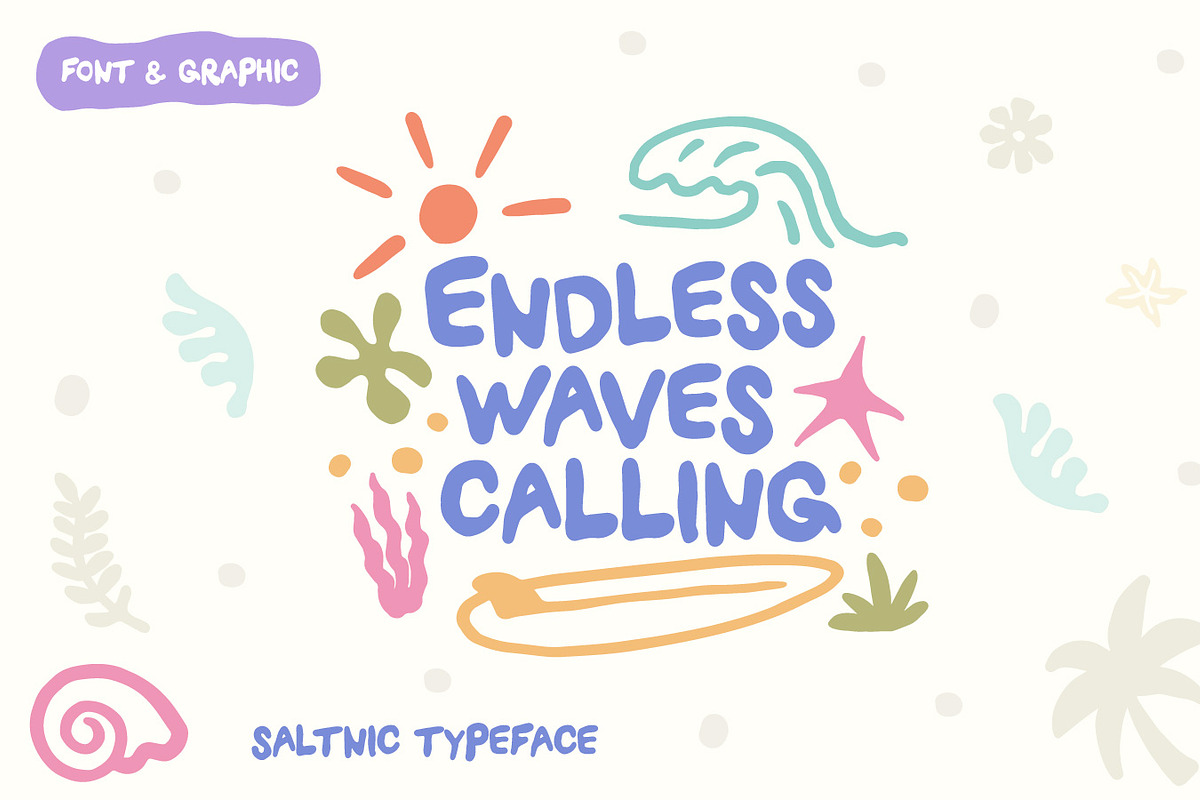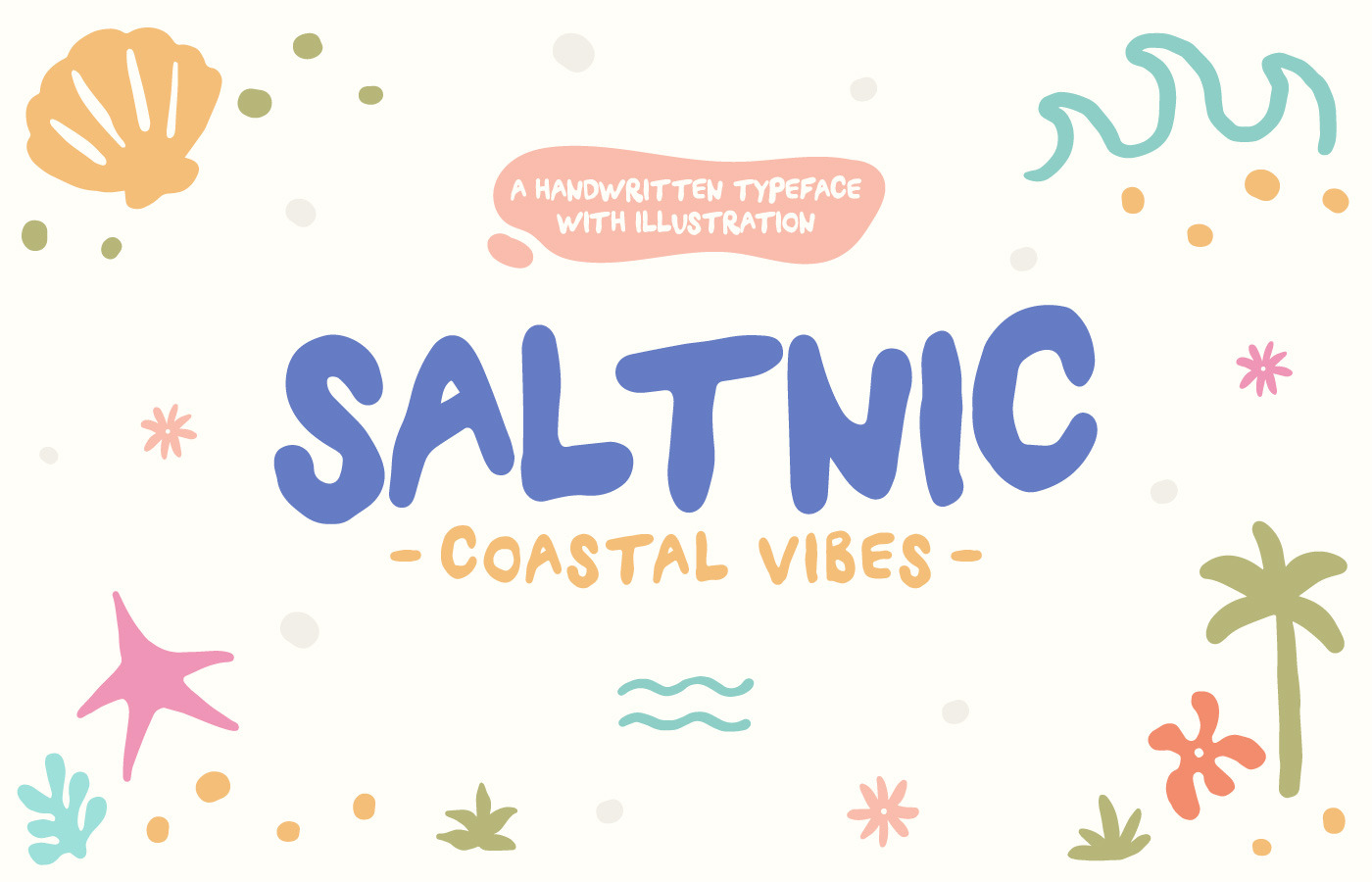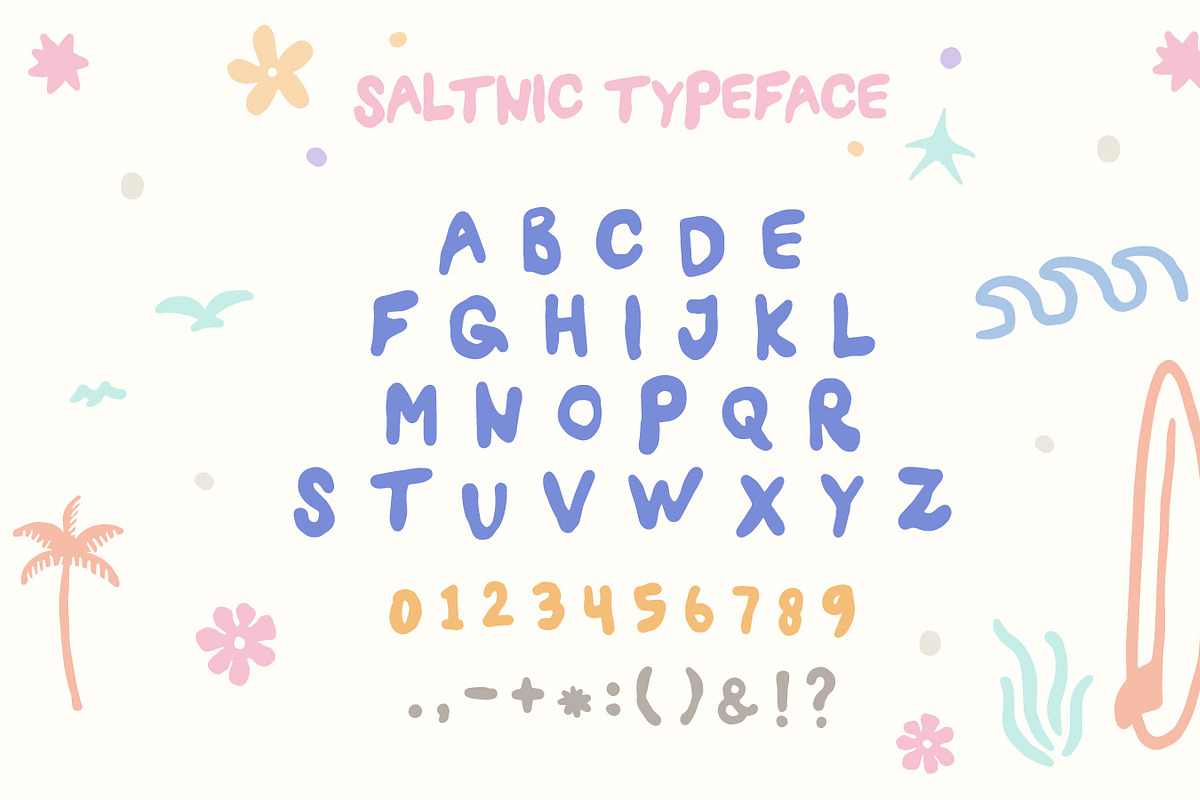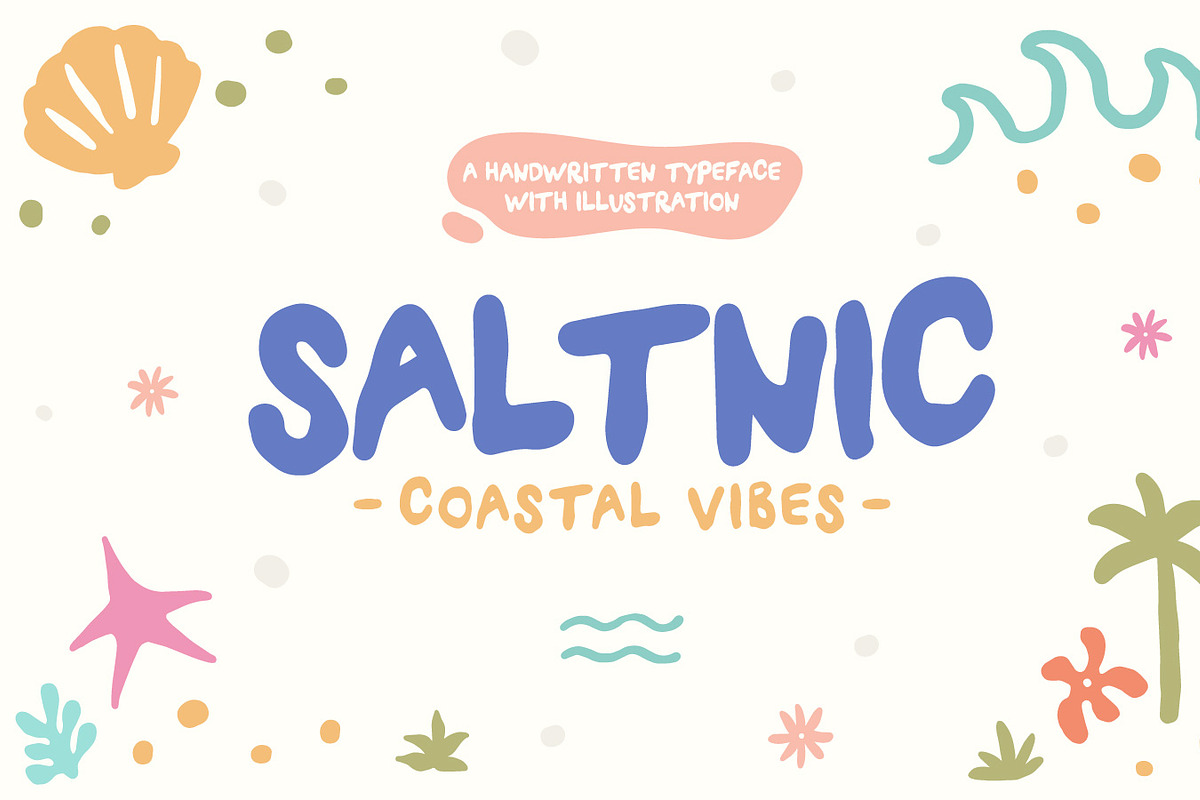
Saltnic - Handwritten Typeface Coast
Saltnic - Handwritten Typeface with Coastal Vibes
Bring the relaxing beach vibes into your designs with Saltnic, a fun and lively handwritten typeface. Perfectly capturing the essence of coastal adventures, this font adds a touch of playfulness and warmth to your projects. Whether you're designing logos, social media posts, branding, packaging, merchandise, or invitations, Saltnic is versatile and easy to use for any creative idea.
Saltnic not only offers a unique typeface but also comes with bonus hand-drawn illustrations inspired by the beauty of the coast, including starfish, seashells, palm trees, and gentle waves. These illustrations perfectly complement the font and allow you to create cohesive and aesthetic designs effortlessly.
Beach and summer vibes branding Coastal-themed invitations and posters Fun vacation promotions and travel brochures Social media content with playful aesthetics Merchandise like tote bags, apparel, and stationery Saltnic’s organic handwritten style, combined with its cheerful coastal illustrations, ensures your designs radiate warmth and authenticity.
Why Choose Saltnic?
Fun and approachable design Perfect for summer or coastal themes Adds a personal, hand-drawn touch to your projects Works great for branding, packaging, and event designs.